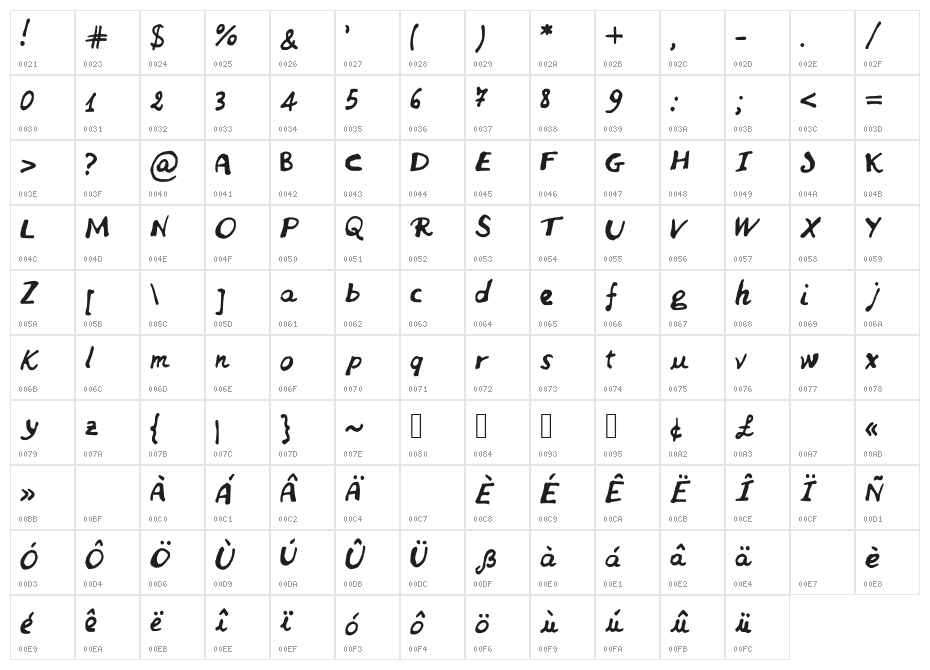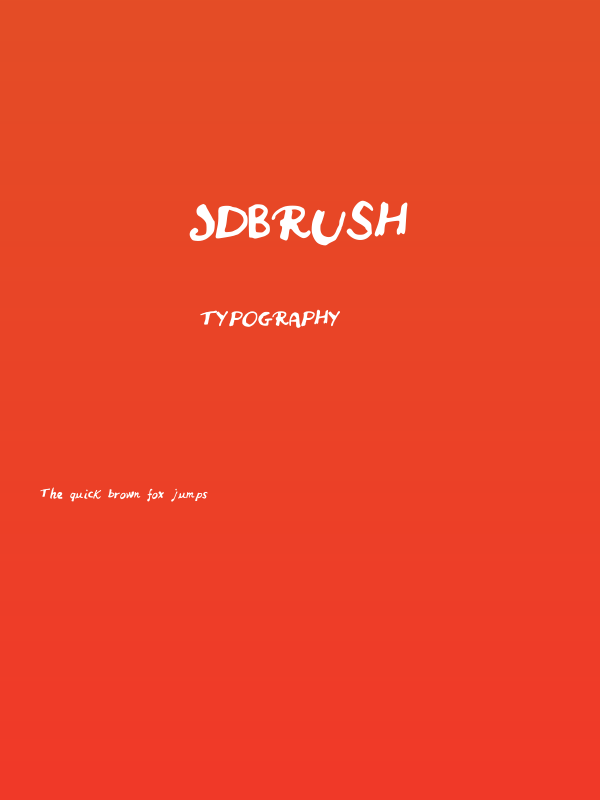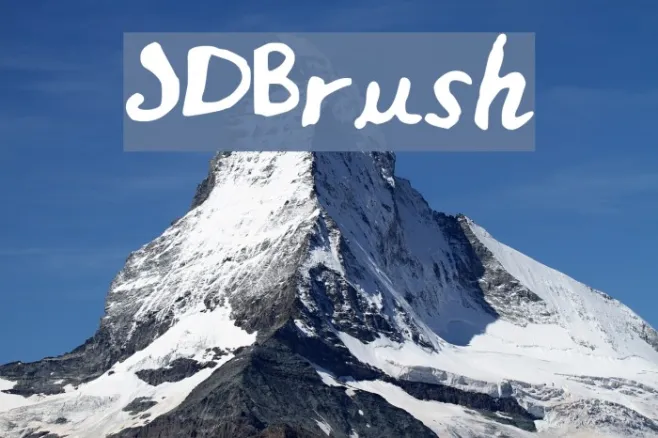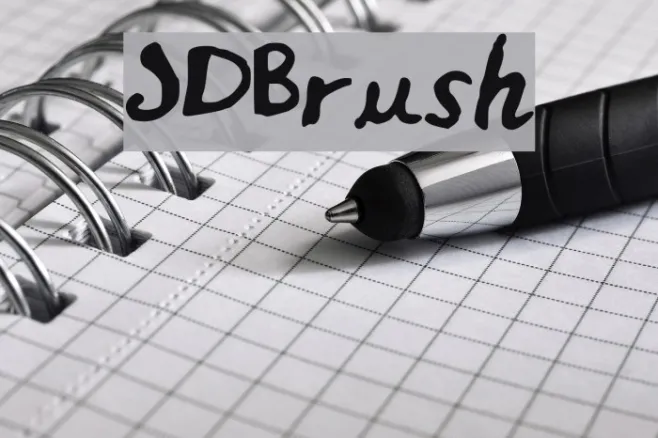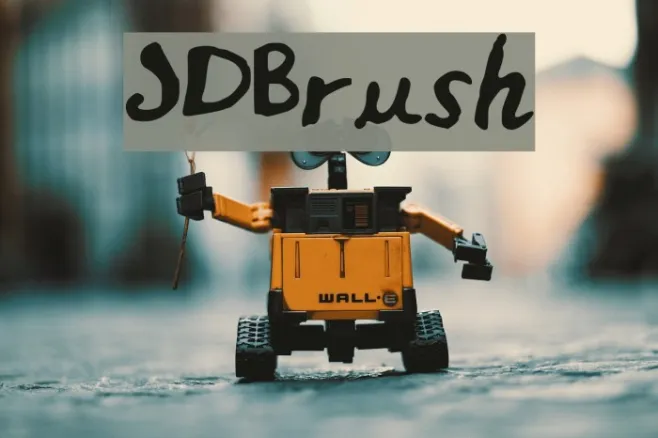
JDBrush Font
JDBrush Description
This font features a bold, brush-like style with a casual and artistic flair. The characters are crafted with a hand-drawn appearance, giving them a lively and dynamic feel. The strokes are thick and expressive, with a slight slant that adds to the informal and playful nature of the design. The uppercase and lowercase letters maintain a consistent style, while the numbers and special characters complement the overall aesthetic. This font is ideal for projects that require a personal touch or a creative, informal vibe.
JDBRUSH UPPERCASE
JDBRUSH LOWERCASE
JDBRUSH OTHER CHARS
| Proposed Projects | Ideal for creative projects such as posters, invitations, greeting cards, and branding materials that require a personal and artistic touch. |